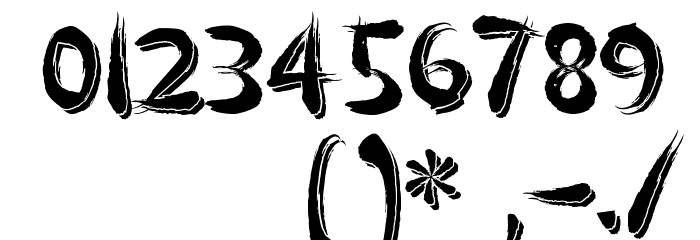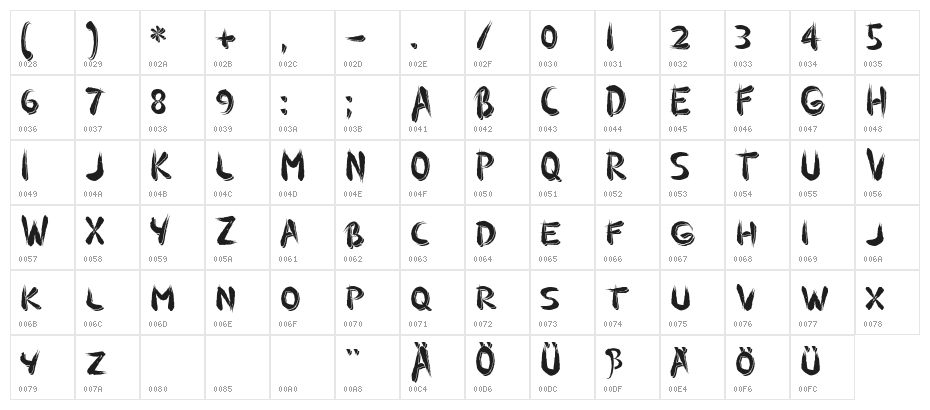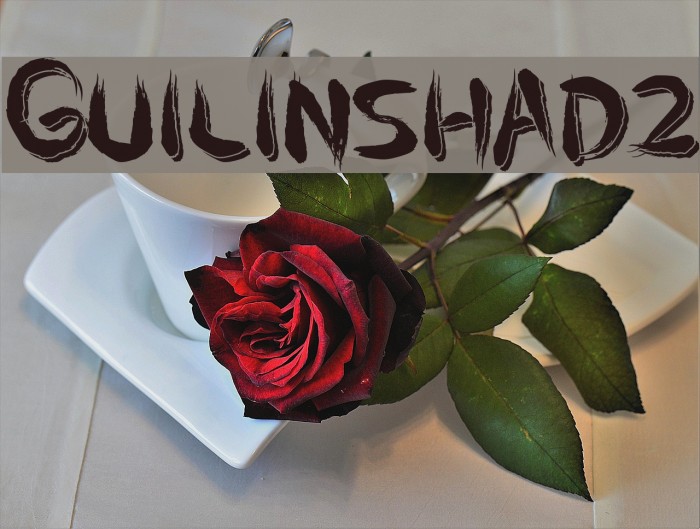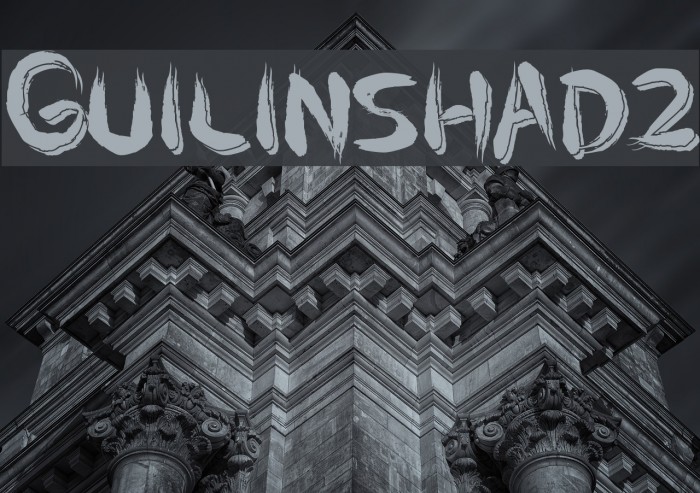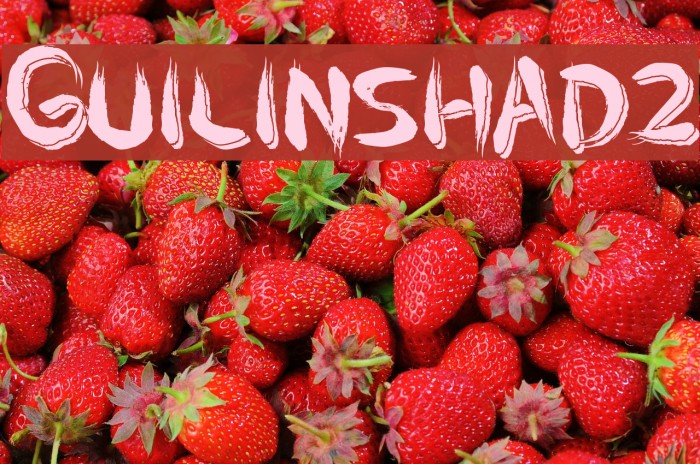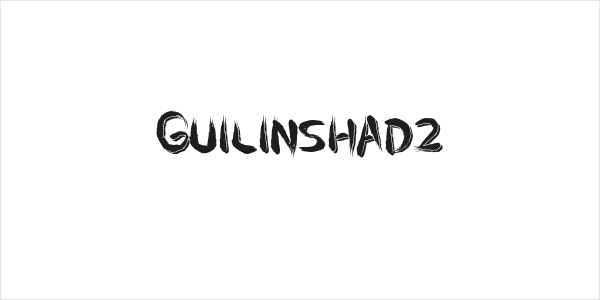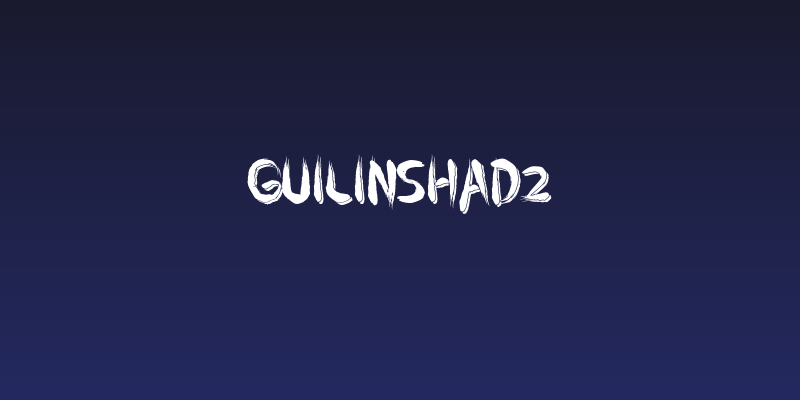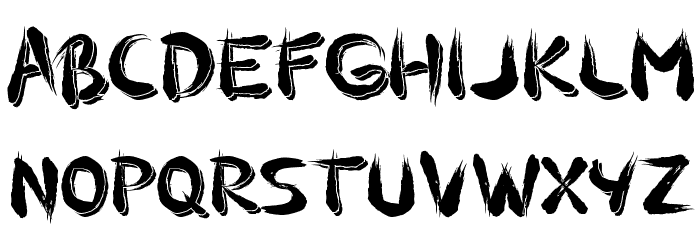
Guilinshad2 Font
Guilinshad2 Description
This font features a bold, expressive style with brush-like strokes that give it a dynamic and artistic appearance. The characters are crafted with irregular edges, mimicking the effect of a paintbrush on canvas. This adds a sense of movement and energy to the text. The uppercase and lowercase letters maintain a consistent style, with varying stroke thickness that enhances the font's visual interest. The numbers and special characters are designed to match the overall aesthetic, ensuring a cohesive look across all elements. This font is ideal for projects that require a creative and bold statement.
| Overall Style | Artistic, Dynamic |
| Proposed Projects | Ideal for artistic posters, album covers, branding, and creative advertisements. |